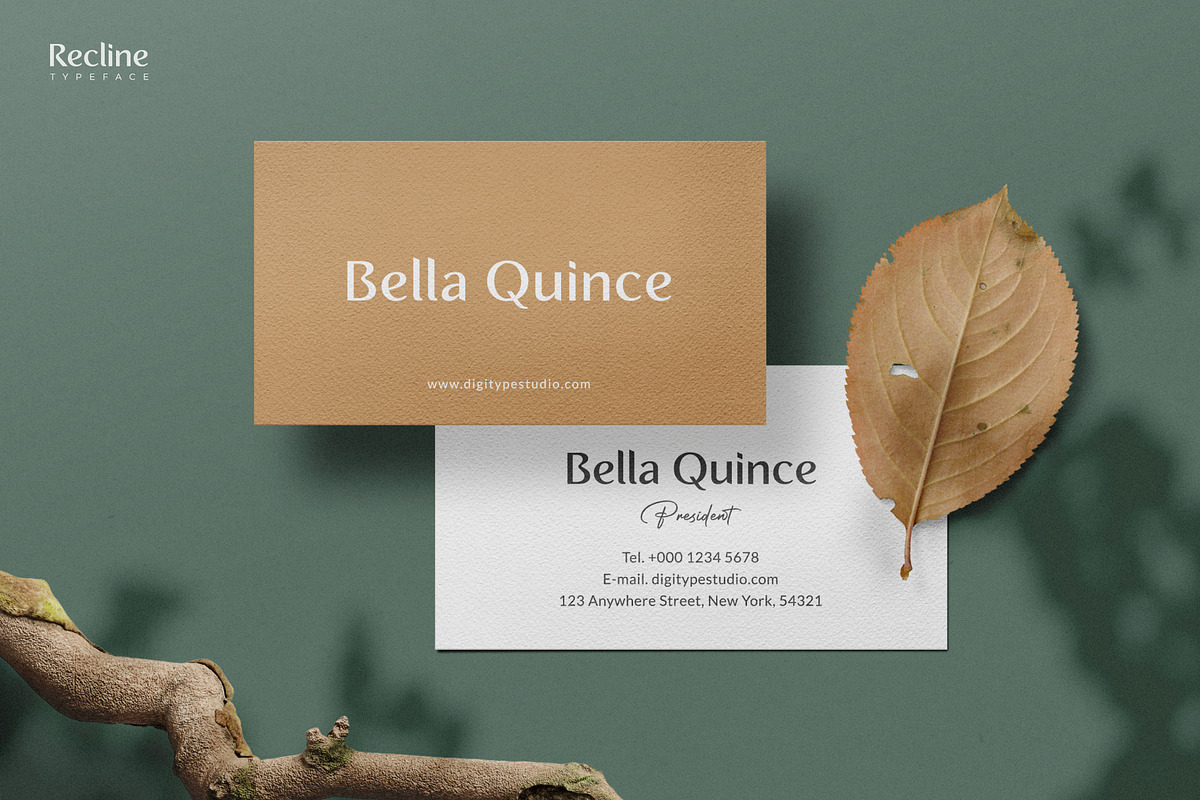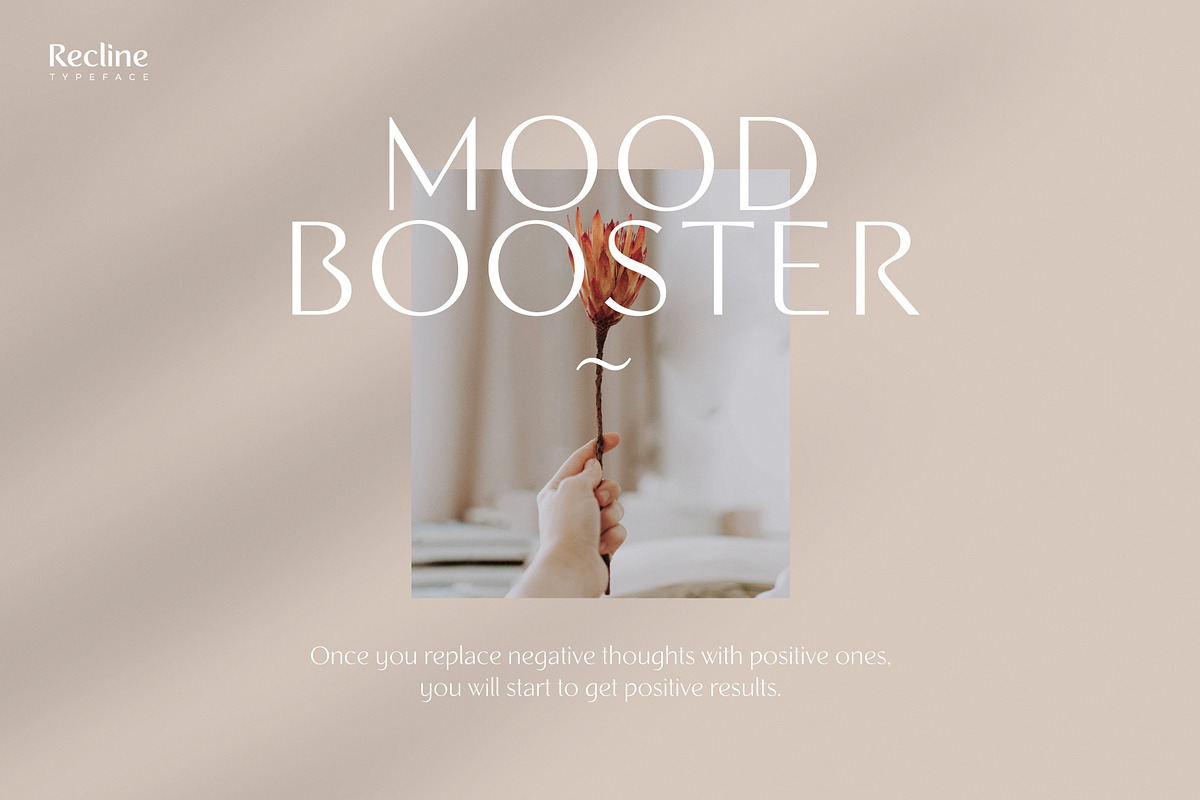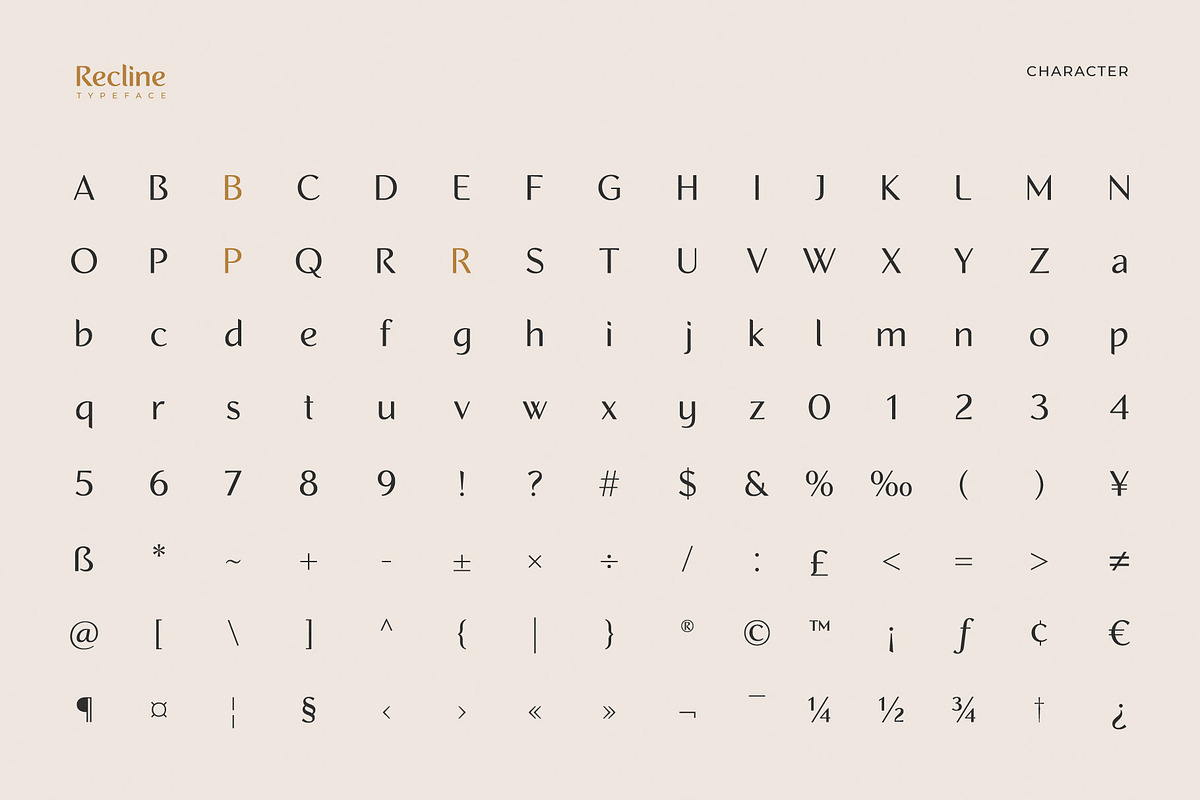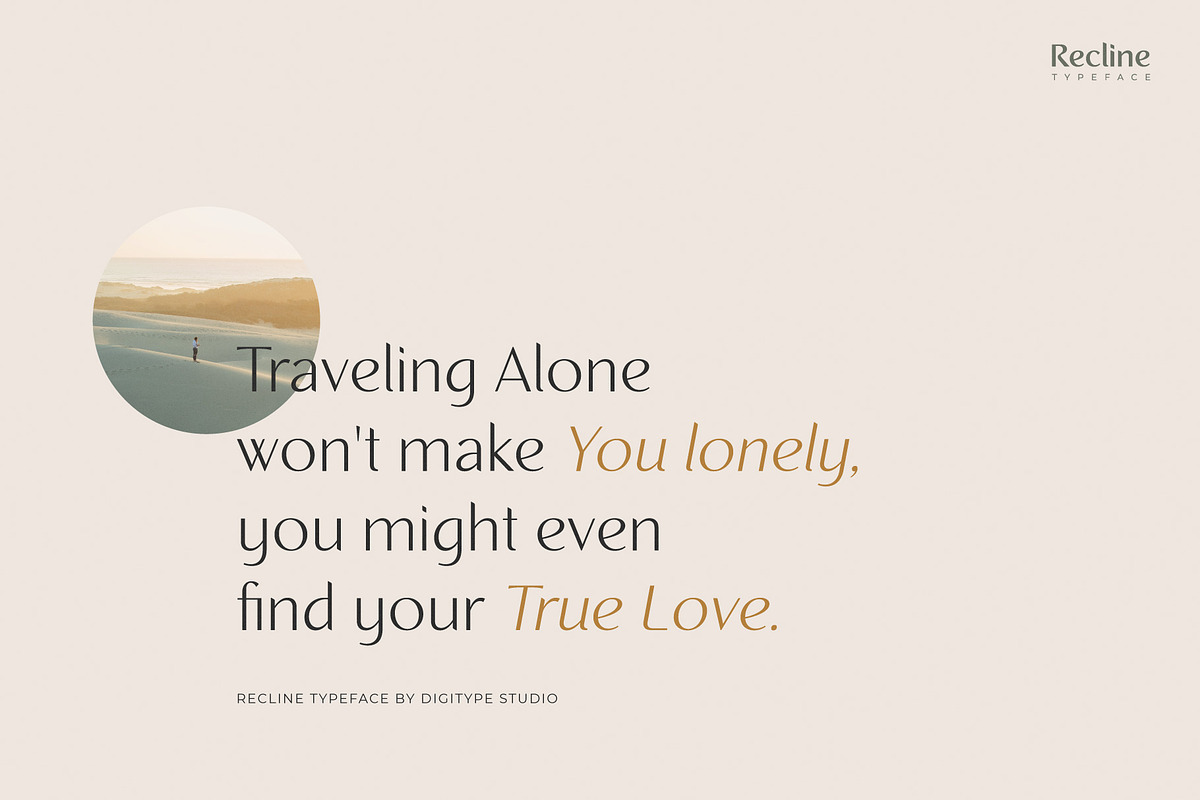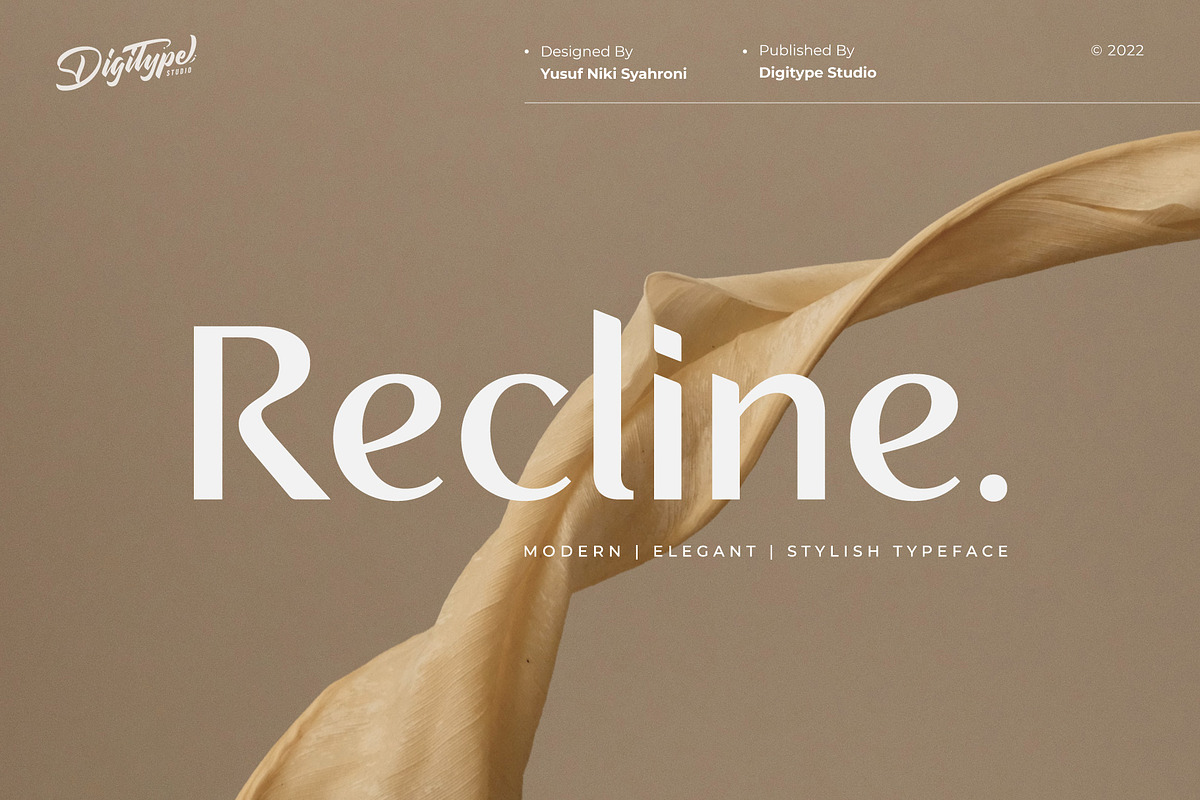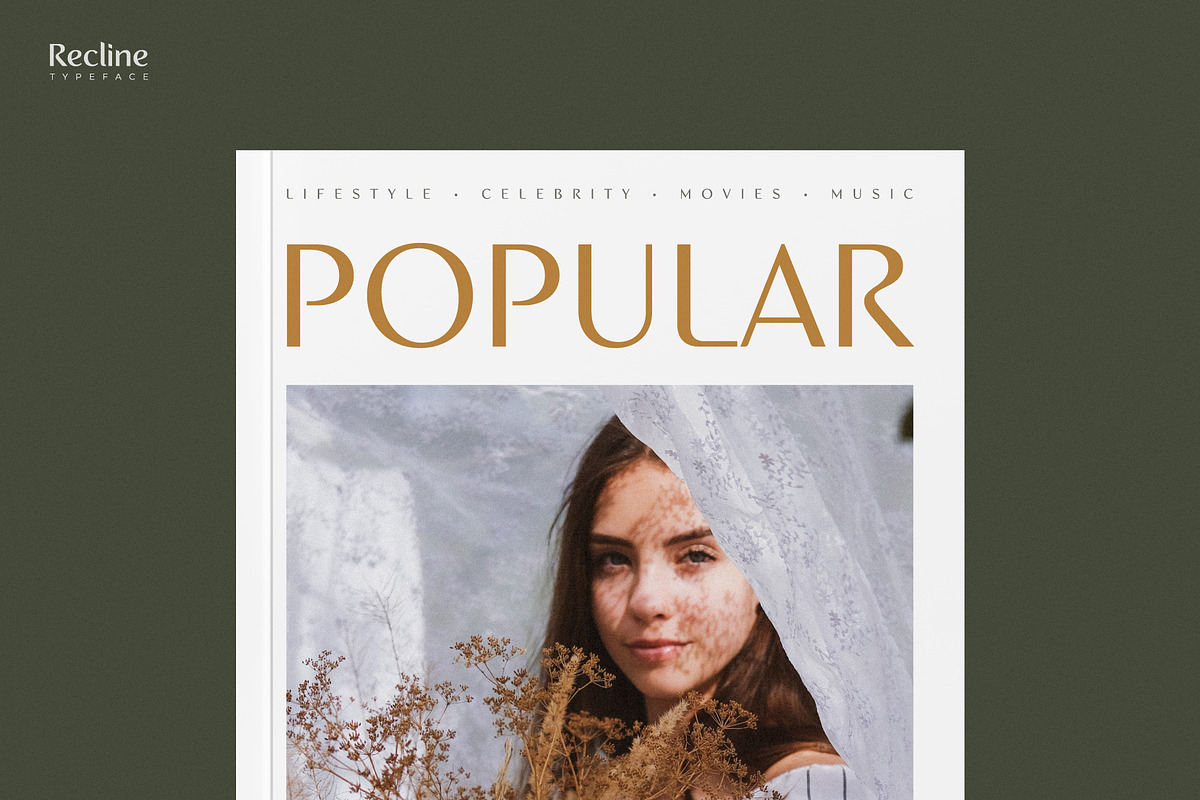
Recline
Recline comes in a modern style featuring 10 weights, 5 straight & angled, making it easy to adapt to your design. An elegant typeface, Recline is perfect for corporate identities, websites, publications, titles, books, magazines, business cards, logos, product labels, packaging, or any kind of advertising purpose.